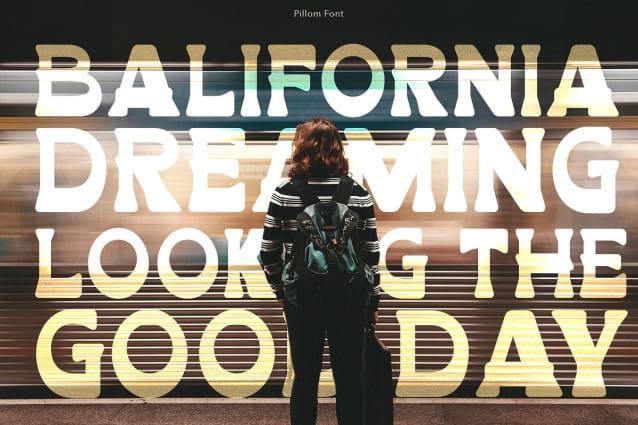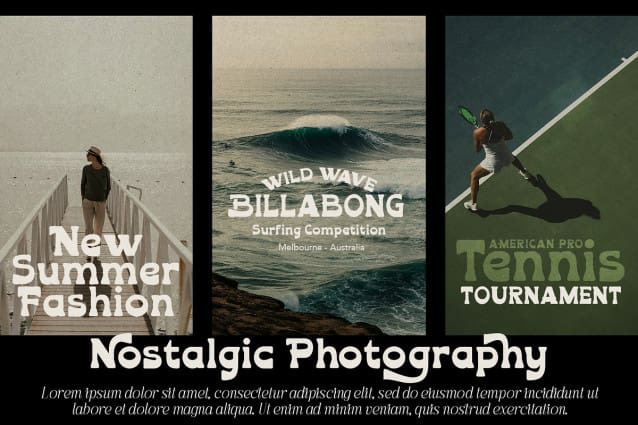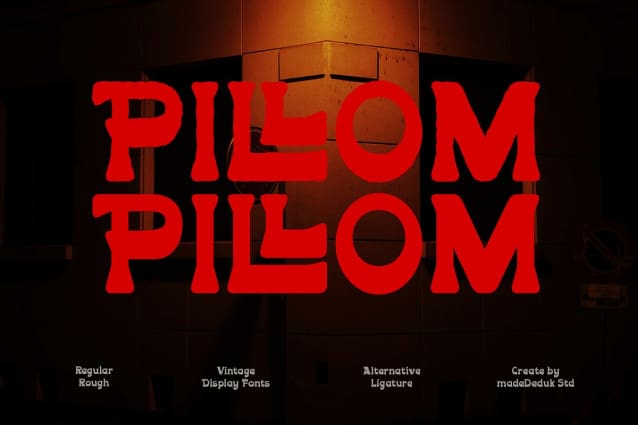
Piloom Display Font is a bold and playful vintage western typeface inspired from the cowboy century with regular, rough and ready use for your project design. To access additional characters please visit the glyphs panel in the design program youâre using.